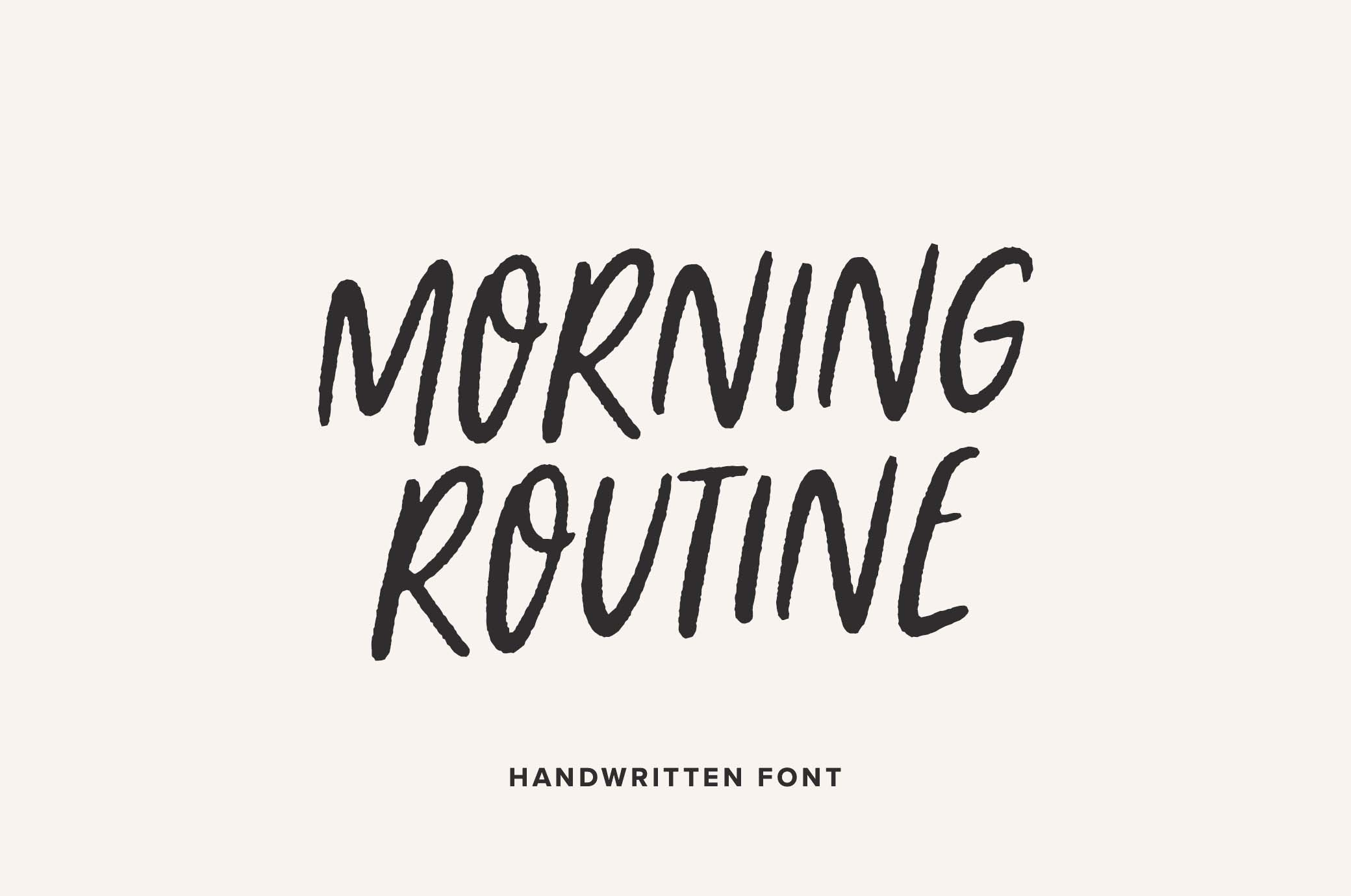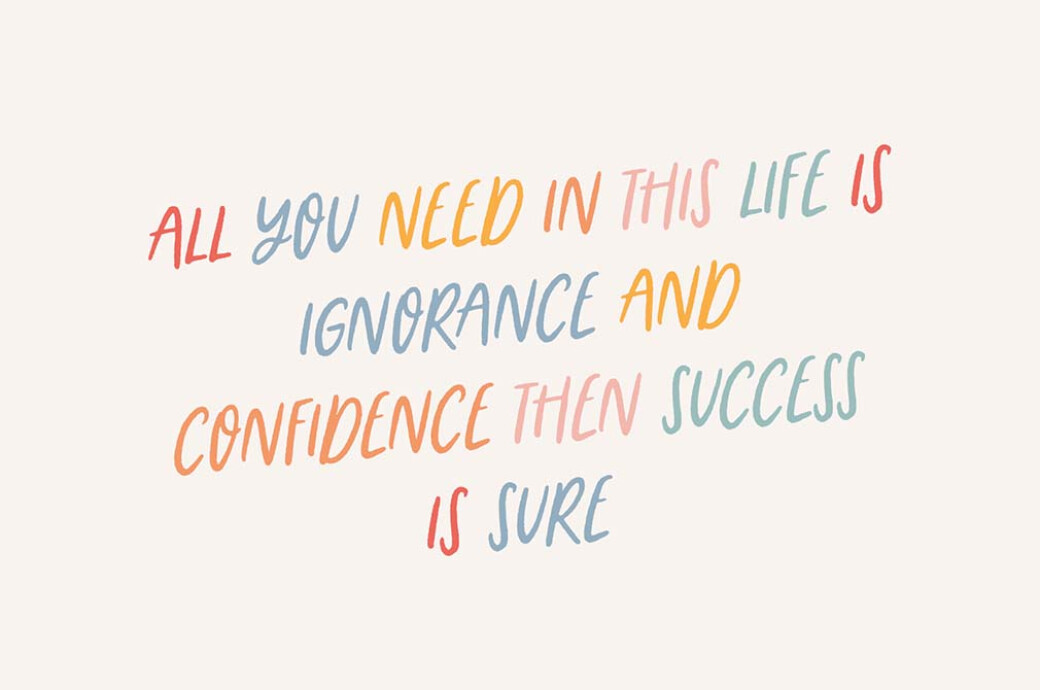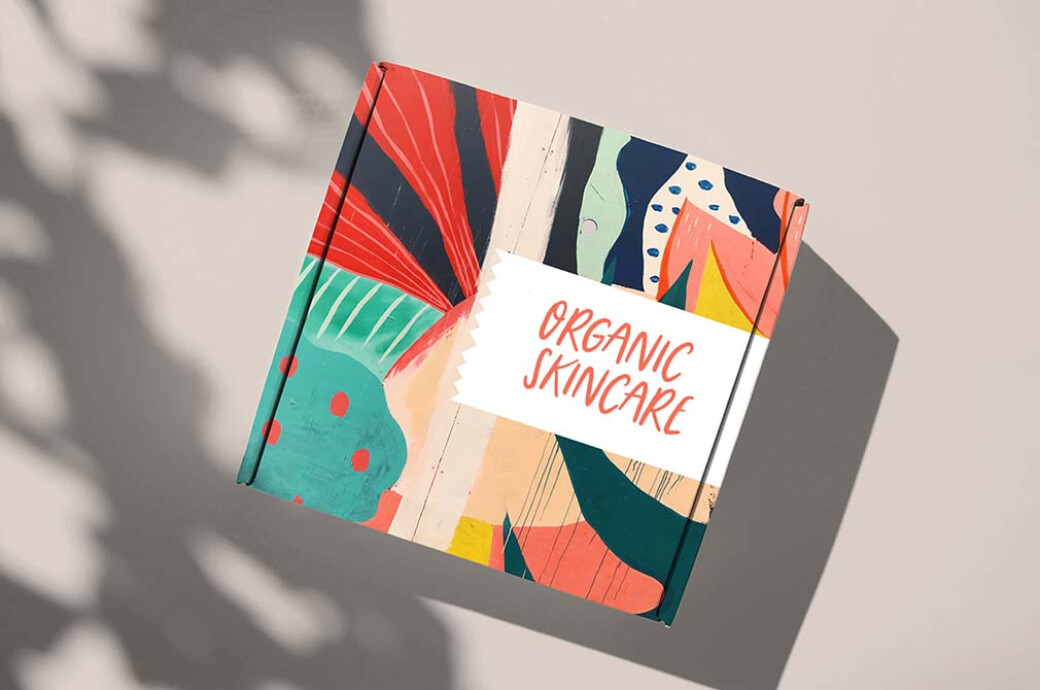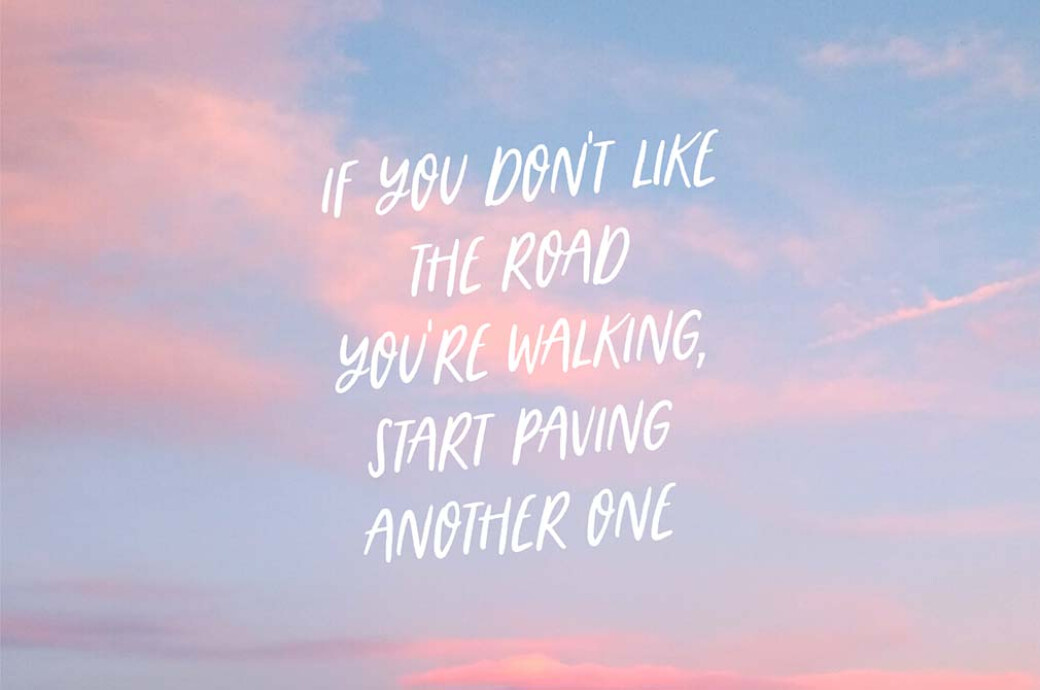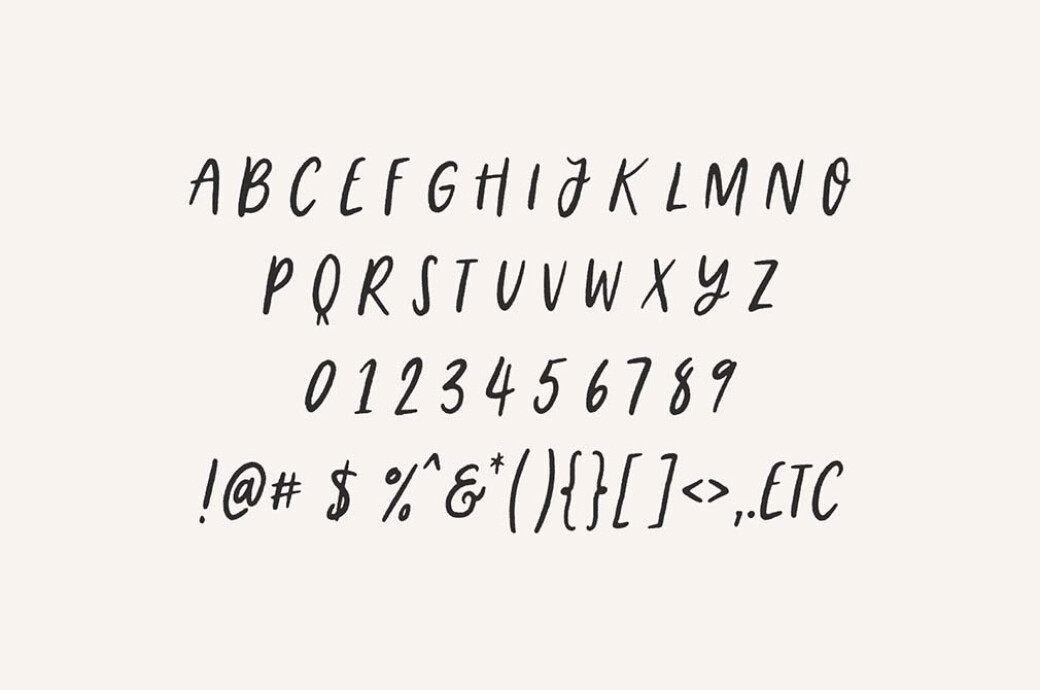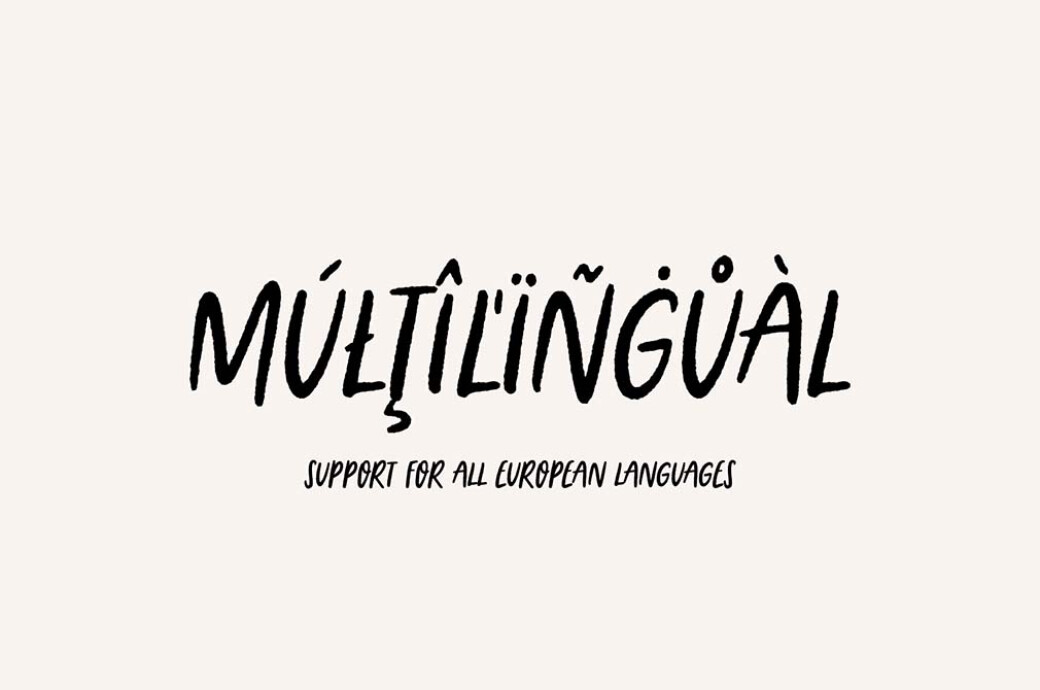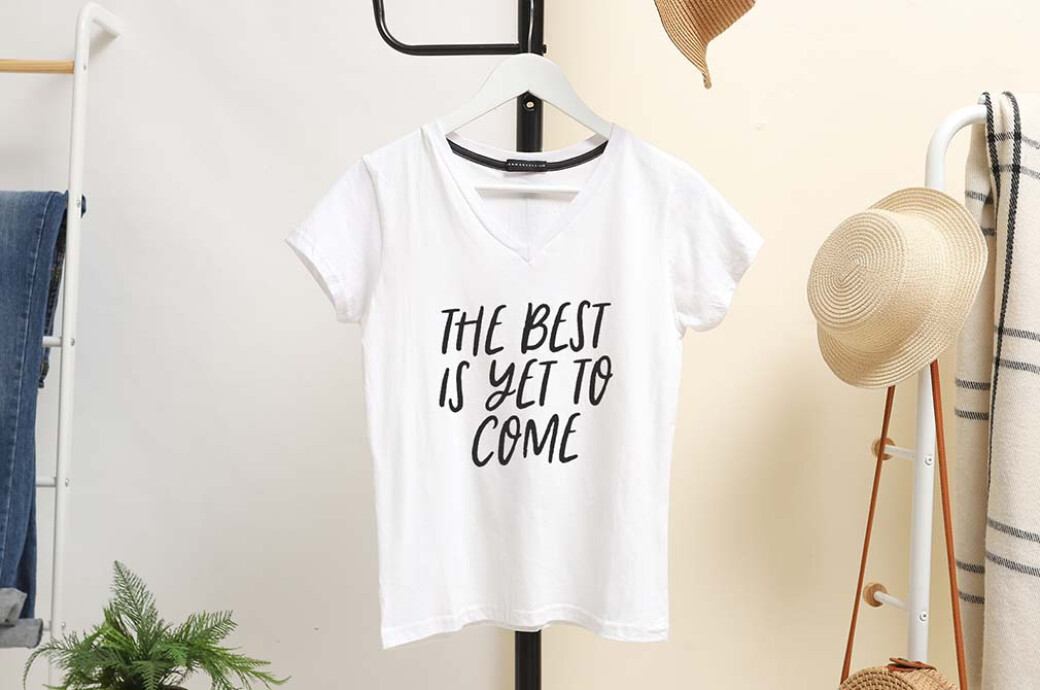
Morning Routine Handwritten Font
They say that little morning rituals shape up the mood for the day! Picked type for a design project works almost the same way: give it a feeling of delight with this free display font.Clean, simple, and cute — what else do you need for a perfect handwritten typeface for creating inspirational quotes, posters, logotypes, product presentations, and merch? Morning Routine is a proper match for the enumerated purposes! Add a personal touch to any project: the font is an OpenType one with clean shapes and precise kerning. It includes the PUA encoded ligatures and multi-language support. Seeing this typeface displayed on graphics is pure bliss!